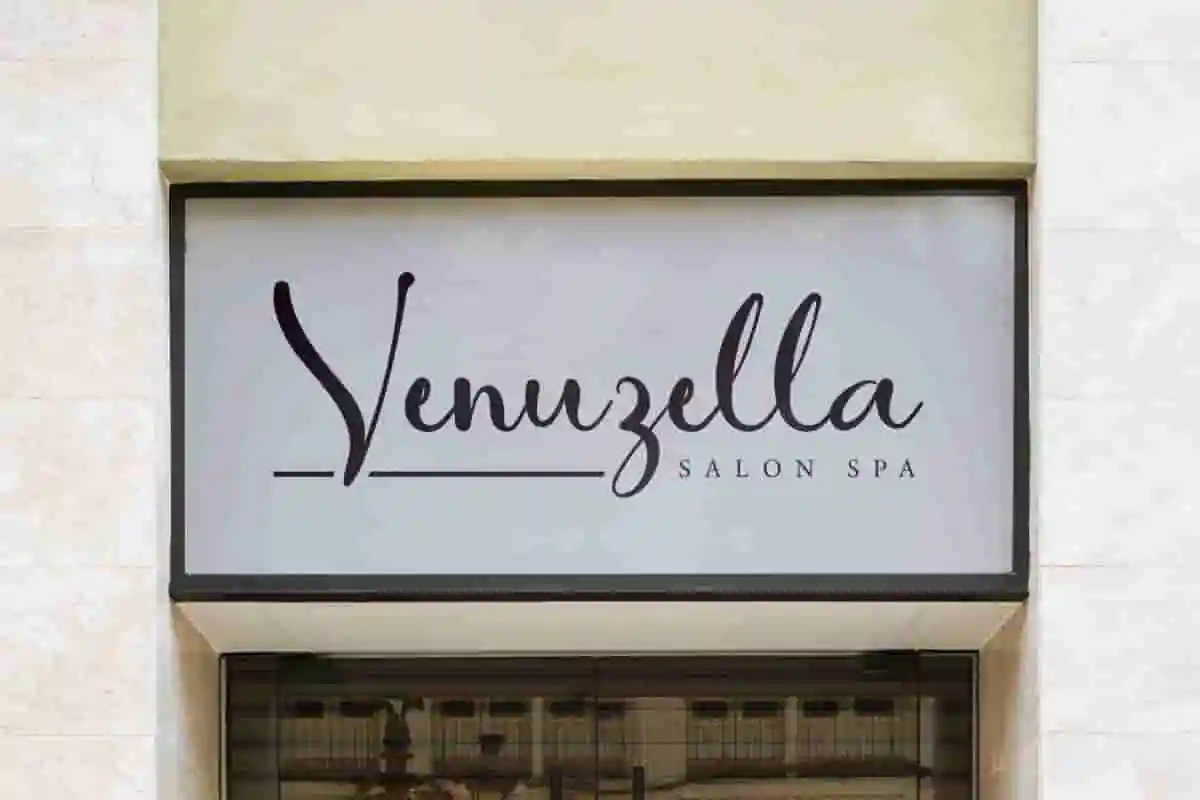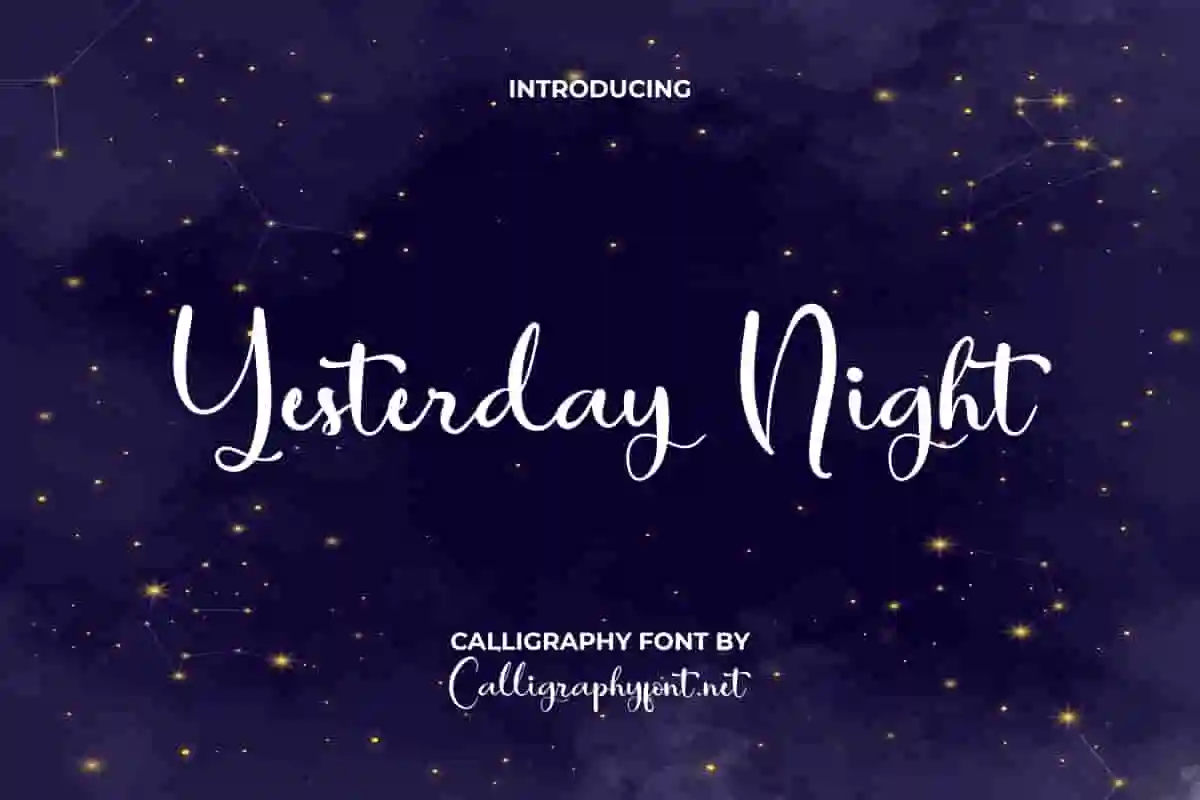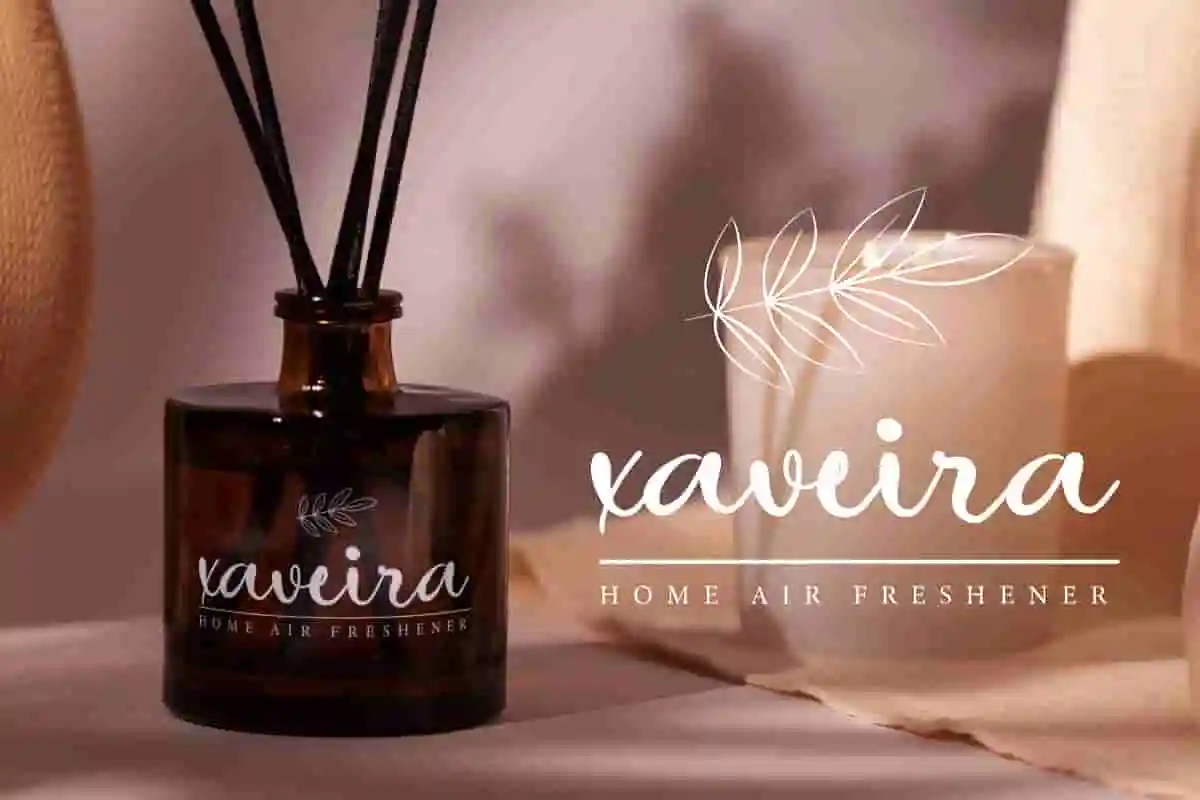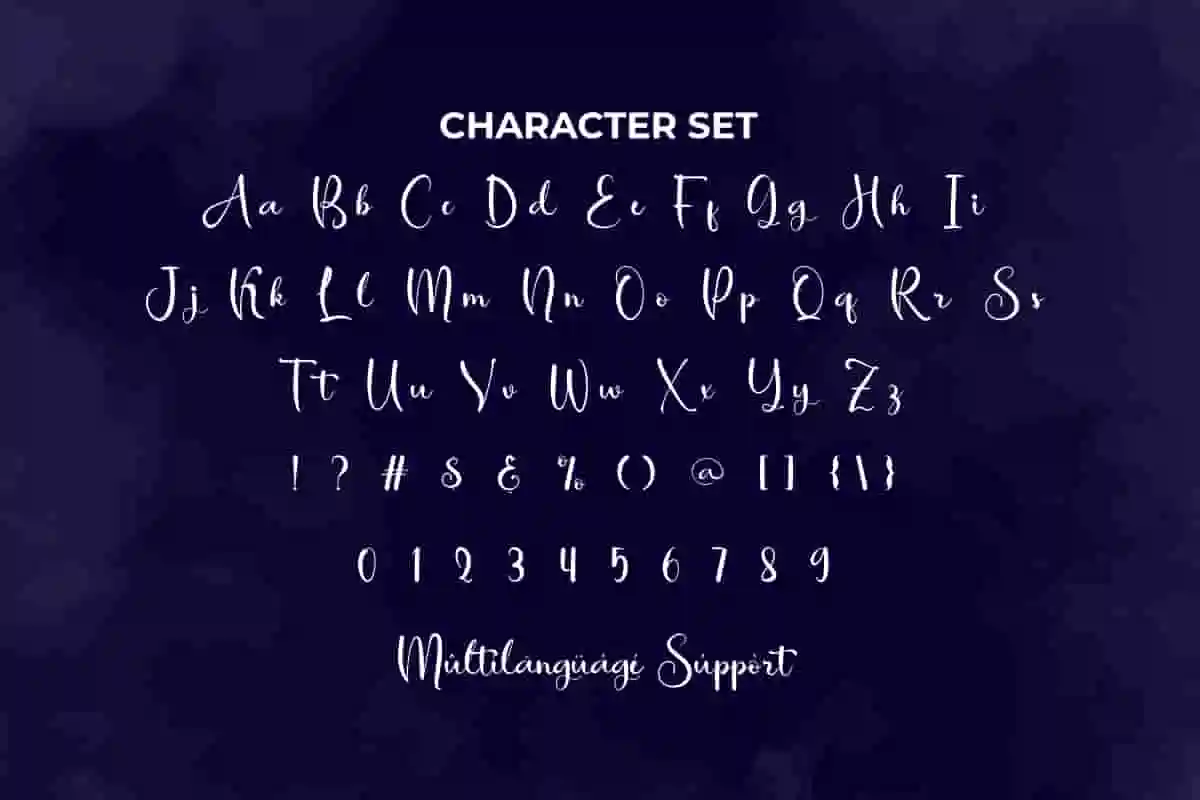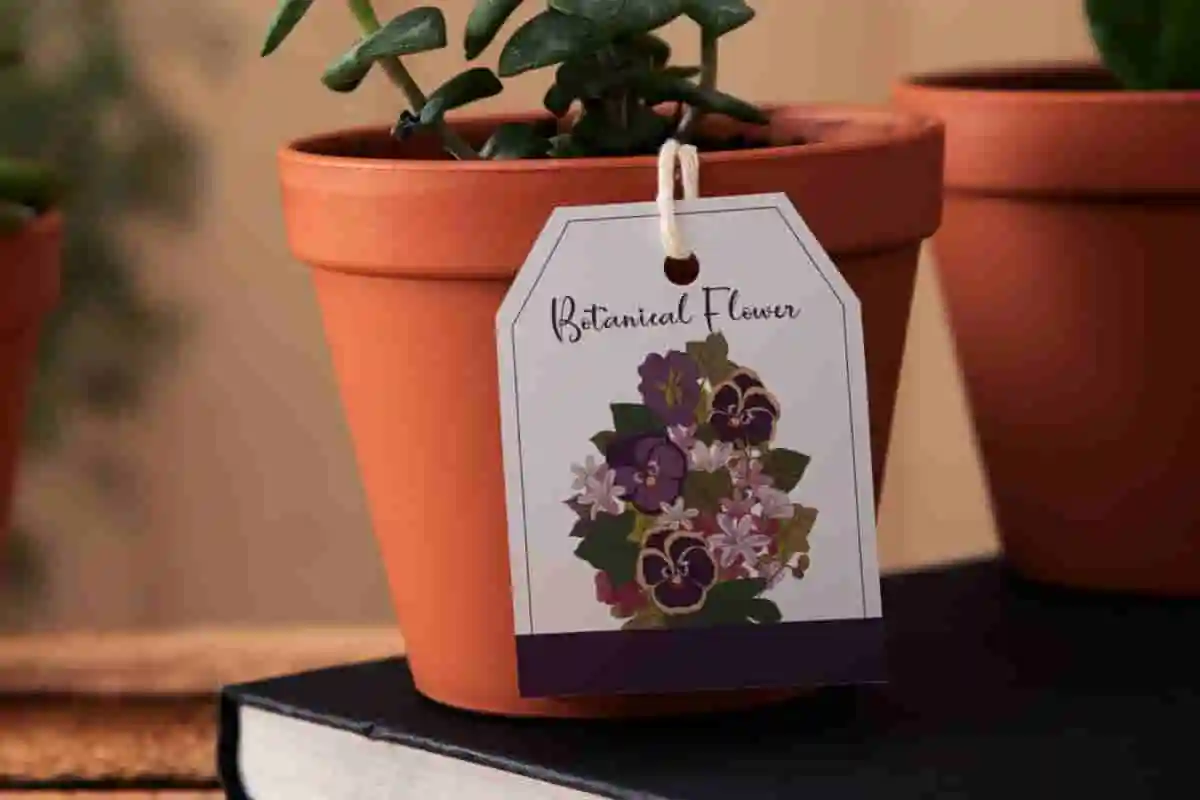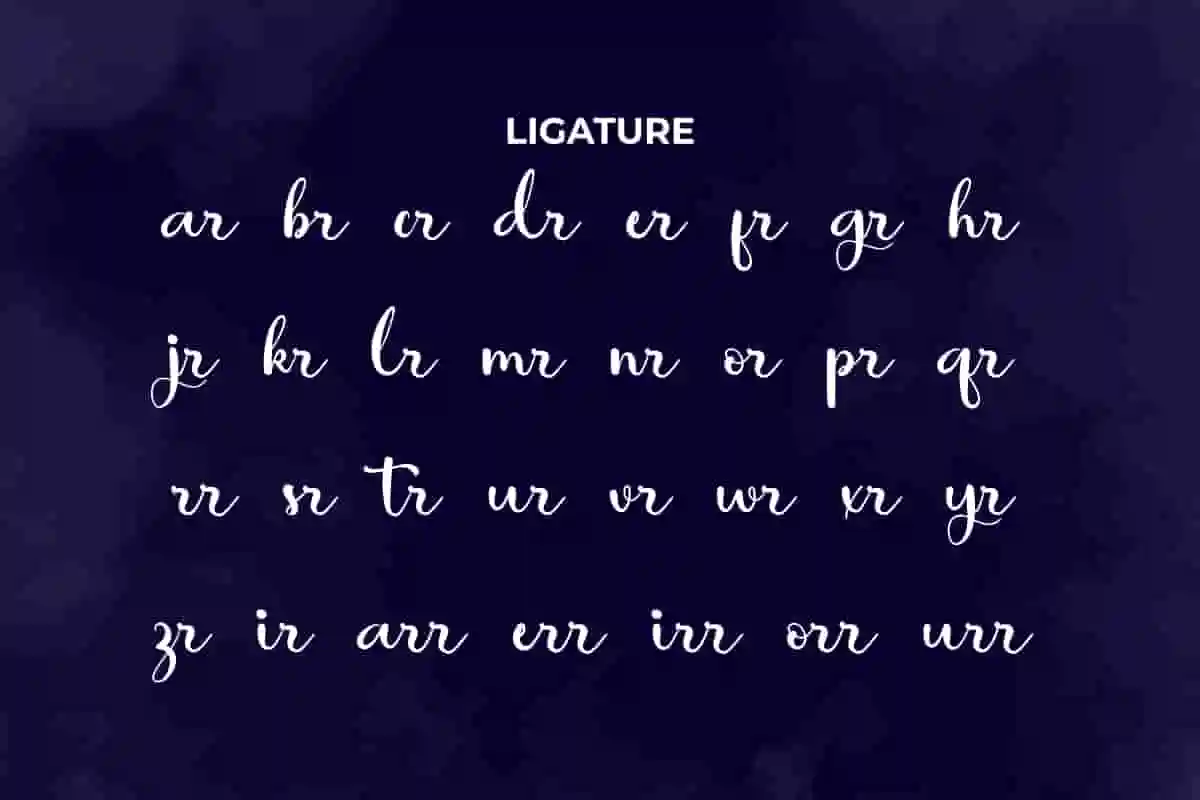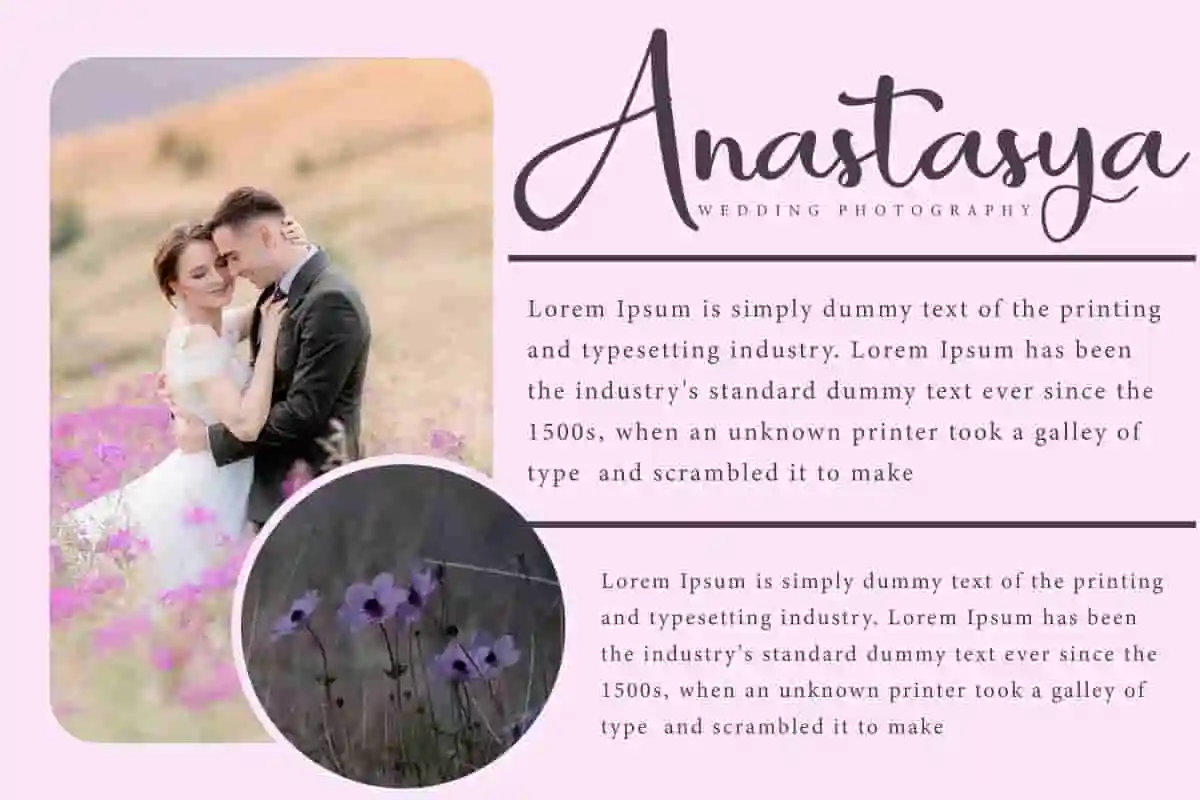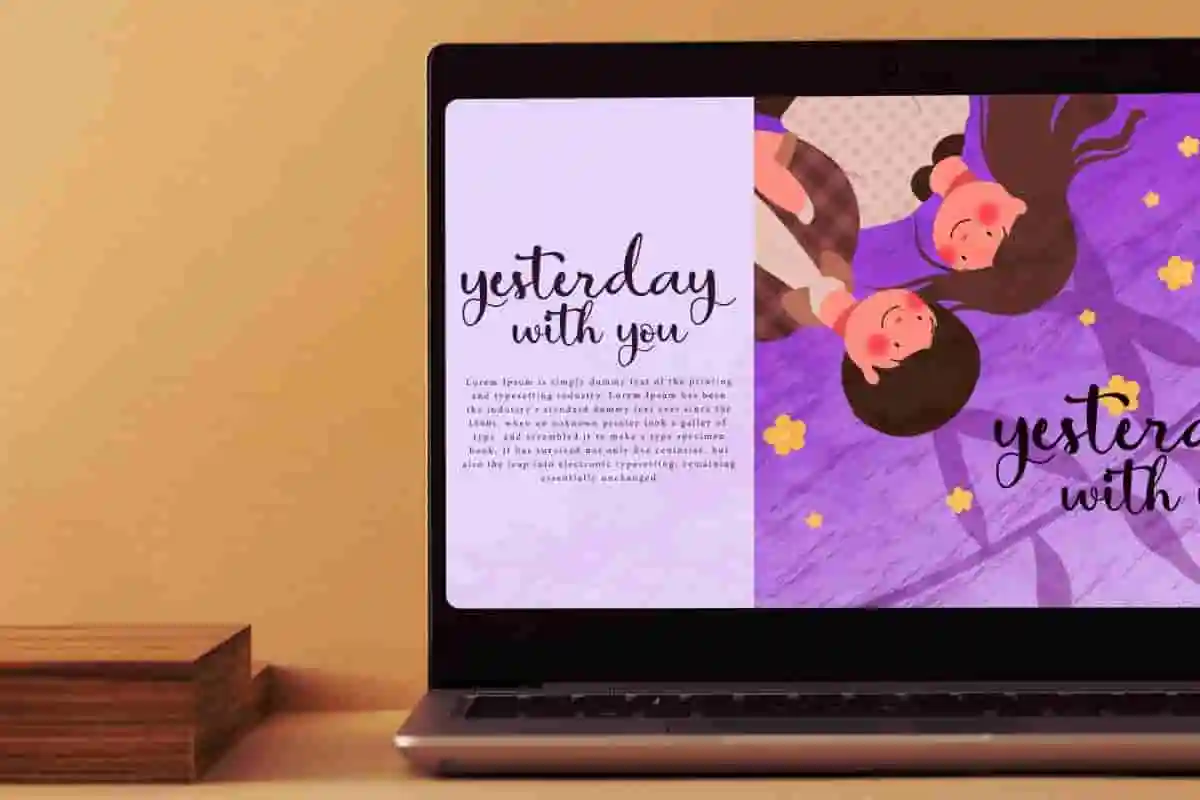
Yesterday Night Font
Yesterday Night Font is a beautiful script font, originally handmade for graphic design needs, restaurant, skincare brand, stationery, website, wedding and many more!
Yesterday Night Font is a lovely calligraphy script font with swinging curves on the letters. This font can make your design completely perfect, but is still easy to read. It’s perfectly made to apply especially to any creative project, such as advertisement post, website, invitation, cover, custom design, label, brand logo, packaging, quote, screen print, and many more!
Yesterday Night Font is a dreamy font that inspired by classic handwriting. It gives an aesthetic feel that makes your work more appealing, so it’s perfect for any industry, such as wedding organizer, accessories, entertainment, author, beauty product, café, content creator, cosmetic, fashion, furniture, graphic design, handicraft, interior design, photography, printing, publishing, skincare, writer, etc.
Yesterday Night Font comes with a full set of Basic Uppercase and Lowercase Characters, Numbers, Punctuation and Symbols, and Ligature. Also equipped with Ligature characters that will decorate this font along with multilingual character support. Ready to use on either Windows or Mac machines with simple installation. It is tested to work well in Adobe Applications (Illustrator, Adobe InDesign, Adobe Photoshop) CorelDraw, and others that support the OpenType feature and the Glyphs panel so you can view and access all Glyph variations.